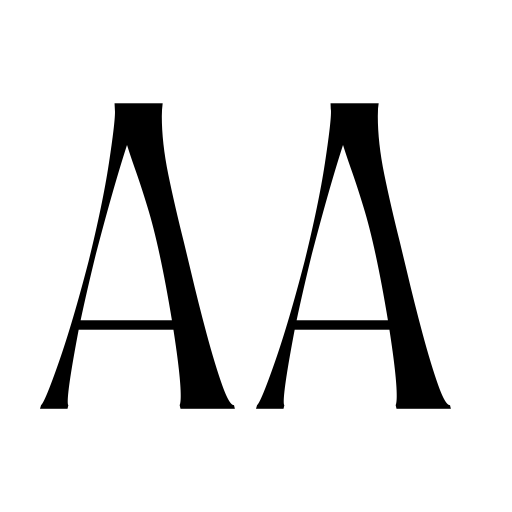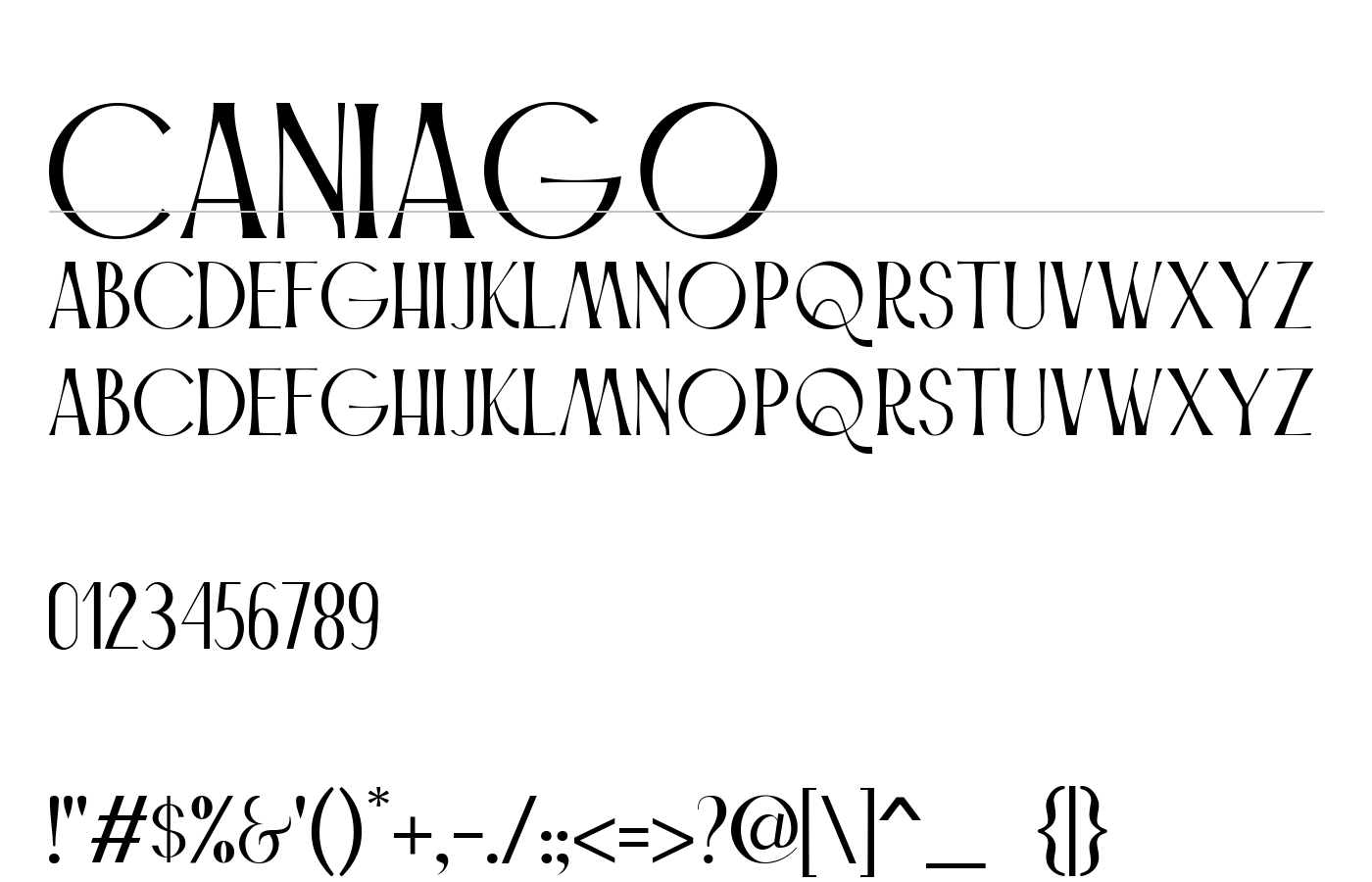
Caniago is a slender serif font with an elegant, vintage flair characterized by its high contrast between thick and thin strokes and narrow letterforms. Its unique, graceful shapes and distinct serifs give it a refined, artistic personality, making it ideal for fashion branding, editorial headlines, and sophisticated logos that seek a blend of modern style and classic charm. This font works best in display use where its distinctive details can stand out and add a touch of luxury and creativity.
Caniago Font
About Caniago Font
| Font family | Caniago Font |
| Release date | 2020-12-06 |
| Designer | Wildan Suprian Syah |